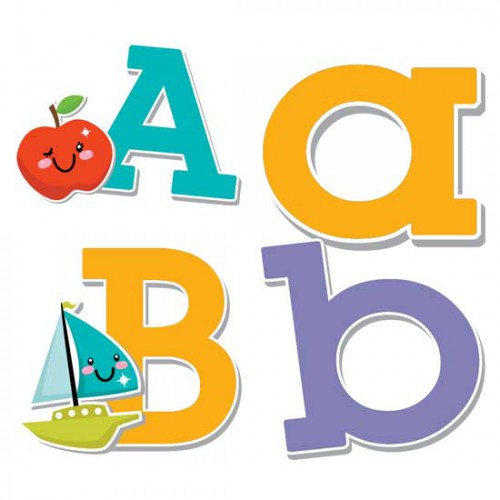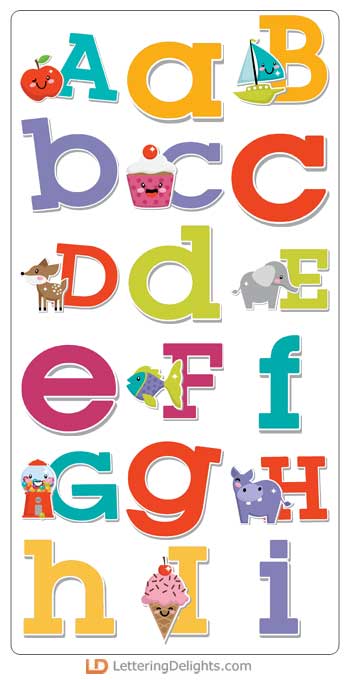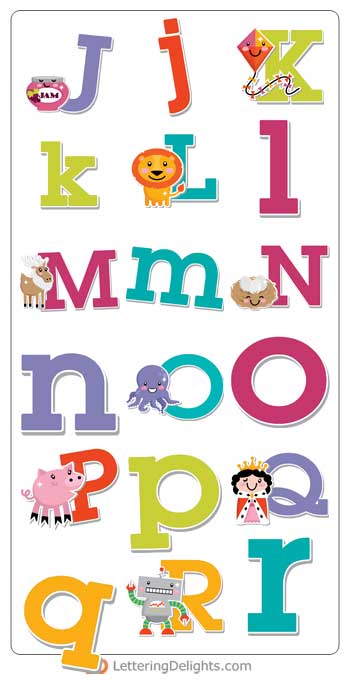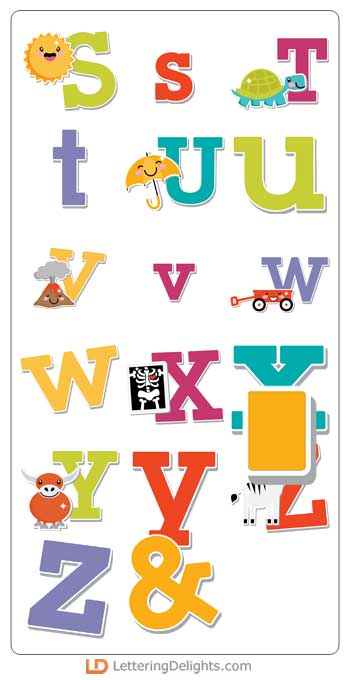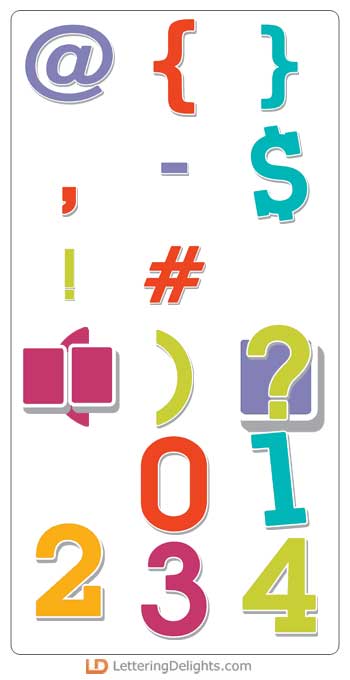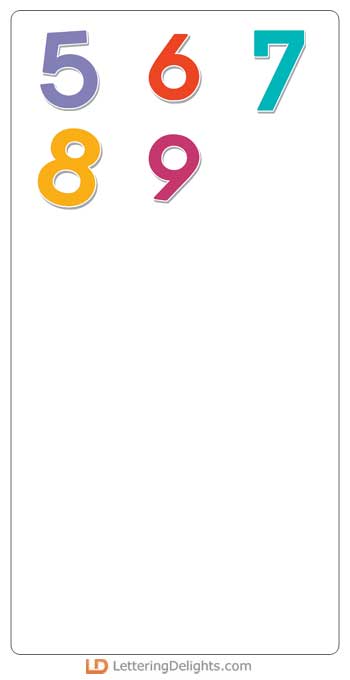
Bright, coloful, alphabet done in the popular Kawaii style. Great for classrooms, teachers, home schools, and more. Vowels contain both long and short sound images. Font recommendation: LD Inventive